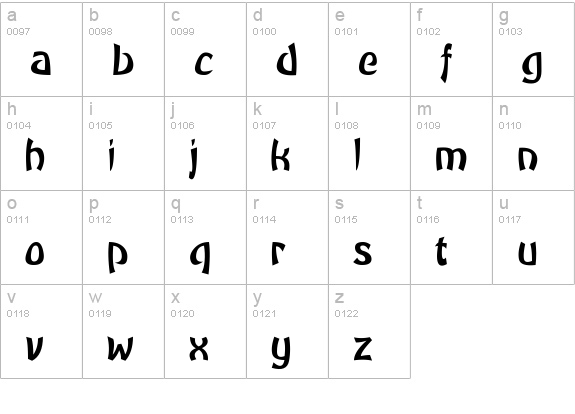
Brutal GG Font Details
Brutal GG font is a striking and bold typeface that exudes power and strength. Its sharp edges and heavy strokes make a bold statement, perfect for grabbing attention and making an impact in your designs. Whether you're creating posters, logos, or headlines, Brutal GG font will add a touch of brutal elegance to your projects. What makes Brutal GG font even more appealing is that it is available for free download at FontsMarket.com. This means you can easily access this eye-catching typeface without any cost, making it a valuable addition to your font collection. Don't miss out on the opportunity to enhance your designs with the powerful presence of Brutal GG font - download it for free today!